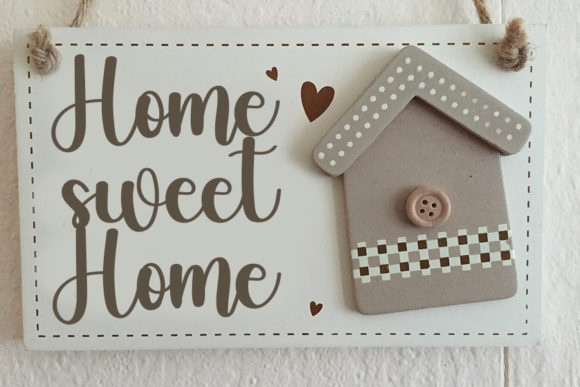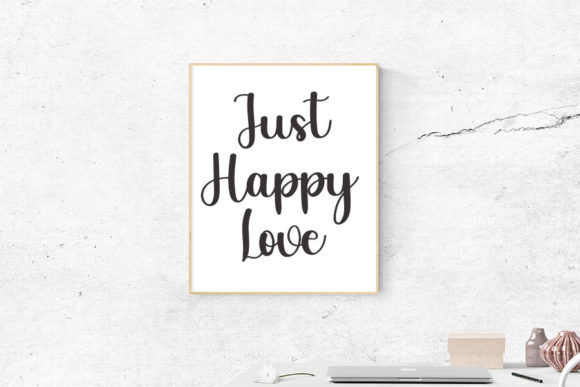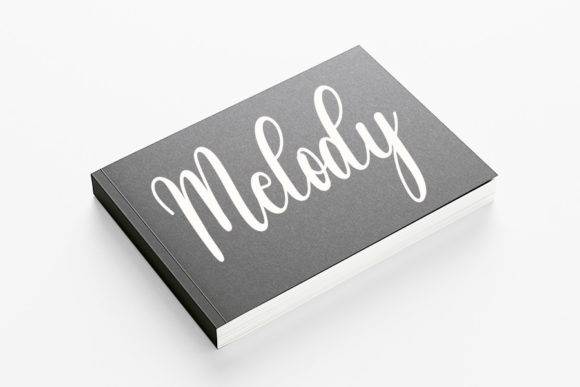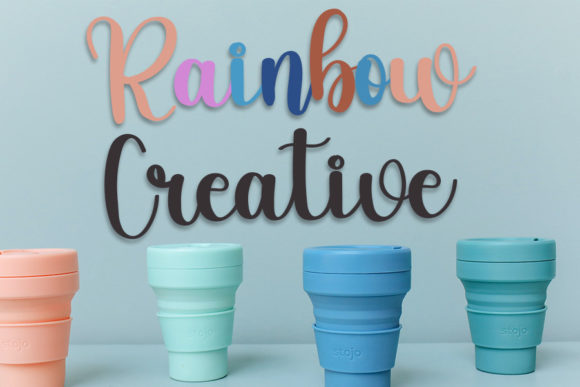
Introducing Everythings Font: Elevate Your Designs with Elegance and Class
Are you tired of using the same old fonts in your designs? Do you want to add a touch of elegance and sophistication to your projects? Look no further than Everythings Font, a lovely and delicate script font that is sure to take your designs to the next level. In this article, we’ll dive into the world of Everythings Font, exploring its features, benefits, and uses, and why it’s a must-have for designers and crafters.
What is Everythings Font?
Everythings Font is a beautiful script font that exudes elegance and class. This font was particularly crafted for those who need a beautiful and refreshing look to their designs. With its delicate and flowing lines, Everythings Font is perfect for adding a touch of sophistication to any project. Whether you’re designing a wedding invitation, a logo, or a blog post, this font is sure to make your design stand out.
Key Features of Everythings Font
- Elegant and Delicate Design: Everythings Font features a beautiful script design that is both elegant and delicate. Its flowing lines and curves make it perfect for adding a touch of sophistication to any design.
- Refreshing and Modern Look: This font has a refreshing and modern look that is sure to make your designs stand out. Its unique and stylish design makes it perfect for designers who want to add a touch of elegance to their projects.
- High-Quality and Readable: Everythings Font is a high-quality font that is designed to be readable and clear. Its high-resolution design ensures that it looks great in any size, making it perfect for use in a variety of projects.
Benefits of Using Everythings Font
There are many benefits to using Everythings Font in your designs. Here are just a few:
- Adds Elegance and Sophistication: Everythings Font adds a touch of elegance and sophistication to any design. Its delicate and flowing lines make it perfect for designs that require a high level of elegance.
- Versatile: This font is versatile and can be used in a variety of projects, from wedding invitations to logos and blog posts.
- Unique and Stylish: Everythings Font has a unique and stylish design that is sure to make your designs stand out. Its refreshing and modern look makes it perfect for designers who want to add a touch of elegance to their projects.
Uses of Everythings Font
Everythings Font can be used in a variety of projects, including:
- Wedding Invitations: This font is perfect for wedding invitations, adding a touch of elegance and sophistication to your designs.
- Logos: Everythings Font can be used to create beautiful and elegant logos that are sure to make your brand stand out.
- Blog Posts: This font can be used to add a touch of elegance to your blog posts, making them more visually appealing to your readers.
- Social Media Graphics: Everythings Font can be used to create beautiful and elegant social media graphics that are sure to grab the attention of your followers.
Everythings Font is a beautiful and elegant script font that is sure to take your designs to the next level. Its delicate and flowing lines make it perfect for adding a touch of sophistication to any project. With its refreshing and modern look, this font is perfect for designers who want to add a touch of elegance to their designs. Whether you’re designing a wedding invitation, a logo, or a blog post, Everythings Font is a must-have font that is sure to make your design stand out.